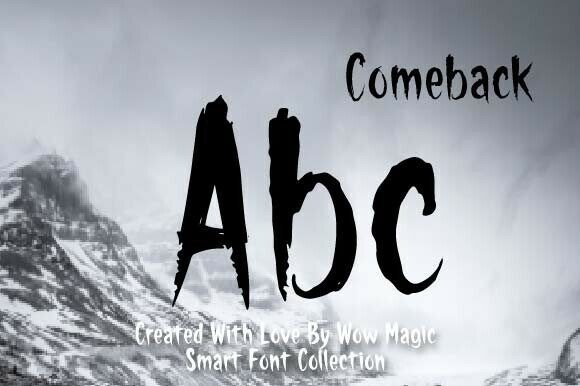
Introducing Comeback Font: Unleash Your Creativity with a Bold and Expressive Typeface
In the world of typography, few fonts manage to capture the essence of raw energy, urban attitude, and handmade texture. But Comeback Font does just that, and more. This bold rough brush display font is handcrafted to deliver a strong and emotional visual impact that instantly grabs attention. Inspired by dry brush strokes, rebellious lettering, and gritty handmade aesthetics, Comeback Font is the perfect addition to any design project that requires a touch of edginess and personality.
The Inspiration Behind Comeback Font
Comeback Font draws inspiration from the raw and unbridled energy of street art, graffiti, and urban typography. The font’s creator aimed to capture the essence of rebellious lettering, dry brush strokes, and gritty handmade aesthetics, resulting in a typeface that exudes confidence and attitude. Whether you’re a designer, artist, or crafter, Comeback Font provides the perfect tool to add a touch of urban grit to your work.
Key Features of Comeback Font
- Bold and Expressive: Comeback Font is a bold rough brush display font that makes a statement. Its raw energy and handcrafted texture give it a unique personality that’s hard to ignore.
- Handcrafted Texture: The font features a beautiful, handcrafted texture that adds a touch of authenticity to any design project.
- Urban Attitude: Comeback Font embodies the spirit of urban typography, making it perfect for designs that require a bold and edgy aesthetic.
- Versatile: This font works beautifully for a wide range of design projects, including posters, album covers, branding, merchandise, packaging, social media graphics, quotes, headlines, and street-style visual projects.
Use Cases for Comeback Font
Comeback Font is an incredibly versatile typeface that can be used in various design projects. Here are some use cases to get you started:
- Music Artwork: Add a touch of edginess to your music artwork with Comeback Font. Its bold and expressive nature makes it perfect for album covers, concert posters, and music-related designs.
- Branding and Merchandise: Use Comeback Font to create bold and eye-catching branding and merchandise. Its handcrafted texture and urban attitude make it ideal for streetwear, apparel, and accessories.
- Editorial Layouts: Add movement and texture to your editorial layouts with Comeback Font. Its expressive nature makes it perfect for headlines, quotes, and other typography-focused designs.
- Social Media Graphics: Create stunning social media graphics with Comeback Font. Its bold and attention-grabbing nature makes it perfect for Facebook, Instagram, Twitter, and other social media platforms.
Tips for Using Comeback Font
To get the most out of Comeback Font, here are some tips to keep in mind:
- Experiment with Colors: Comeback Font looks great in bold and bright colors. Experiment with different color combinations to find the perfect fit for your design.
- Play with Texture: The font’s handcrafted texture is one of its standout features. Play with different textures and overlays to add depth and interest to your design.
- Mix and Match: Don’t be afraid to mix and match Comeback Font with other typefaces. Its bold and expressive nature makes it a great companion to other fonts.
Comeback Font is a bold and expressive typeface that adds a touch of urban grit to any design project. Its handcrafted texture, raw energy, and urban attitude make it perfect for designers, artists, and crafters looking to create stunning and attention-grabbing designs. With its versatility and flexibility, Comeback Font is sure to become a staple in your design toolkit.